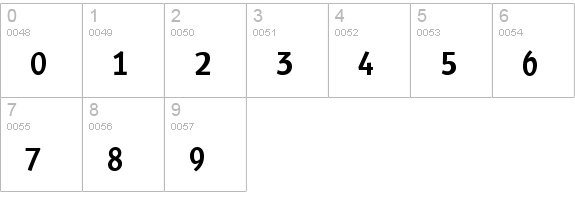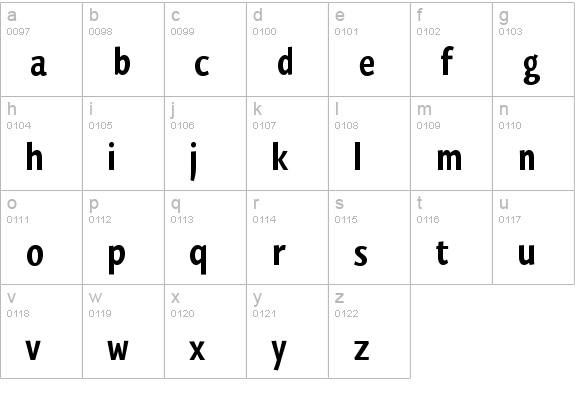
HerbertEF-Regular Font Details
HerbertEF-Regular is the standard, neutral variant in the HerbertEF typeface family \xE2\x80\x94 well suited to general body text, paragraphs, and standard typographic work.
HerbertEF-Regular font is a versatile and elegant typeface that offers a perfect balance of classic and modern design elements. Its clean lines and distinct letterforms make it suitable for a wide range of design projects, from branding to editorial layouts. The font exudes a sense of sophistication and professionalism, making it ideal for both digital and print applications. What sets HerbertEF-Regular font apart is that it is available for free download at FontsMarket.com. This means that you can easily access and use this high-quality font in your projects without any cost. Whether you are a designer, student, or hobbyist, HerbertEF-Regular font provides a valuable resource that can elevate your work to the next level. Don't miss out on the opportunity to enhance your designs with this exceptional typeface that is just a click away.